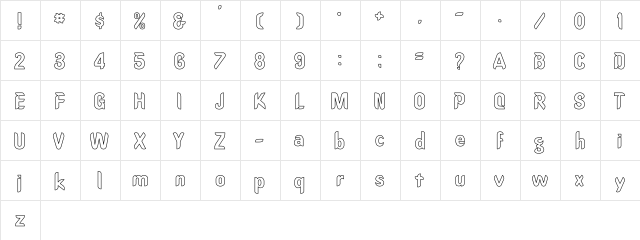
OregonDry Hollow Regular
Design Context for OregonDry Hollow Typeface
OregonDry Hollow takes a measured approach to typography — its balanced proportions and neutral character make it a reliable workhorse for both digital and print work.